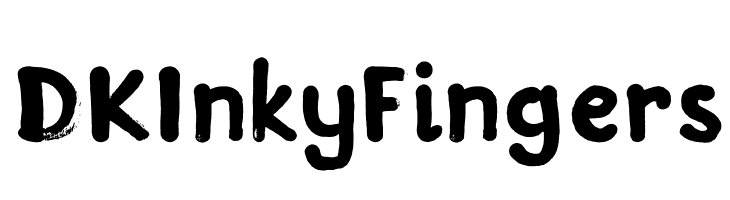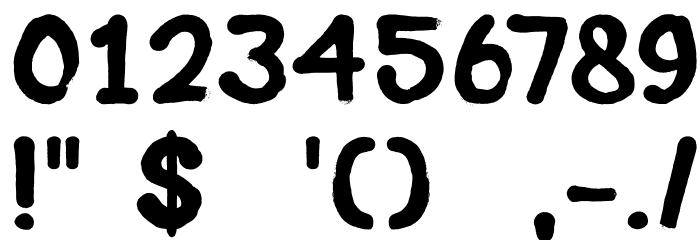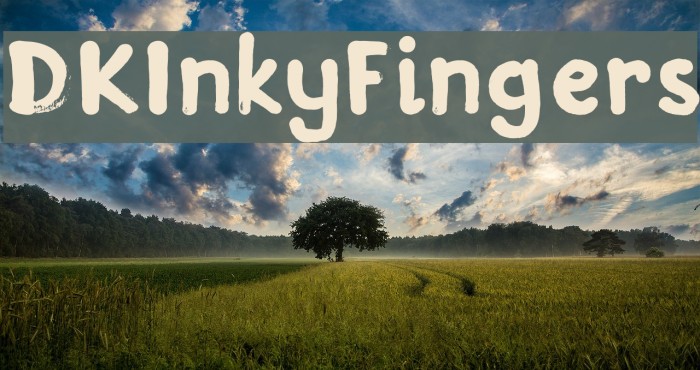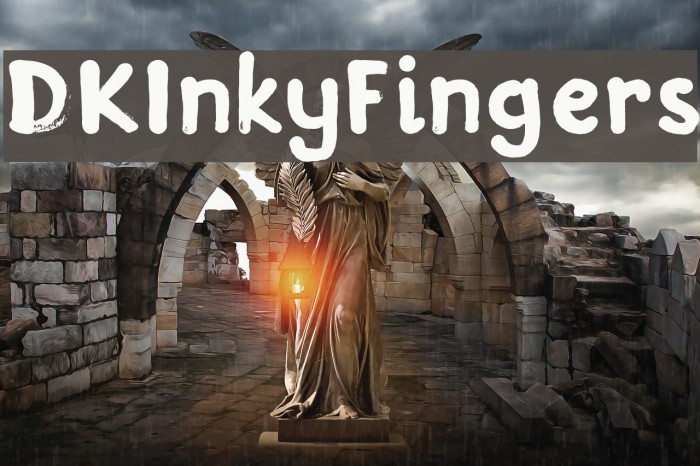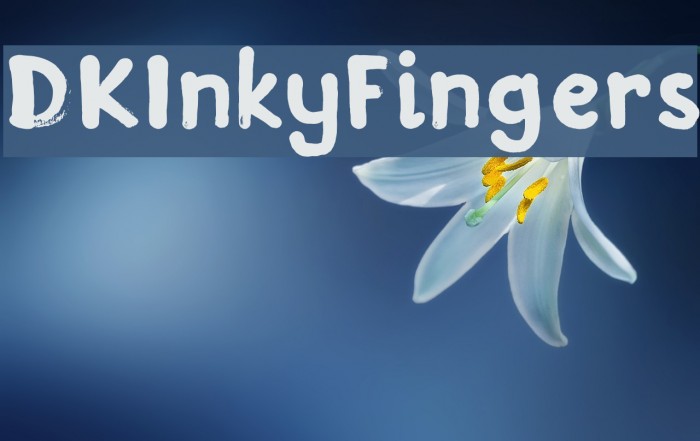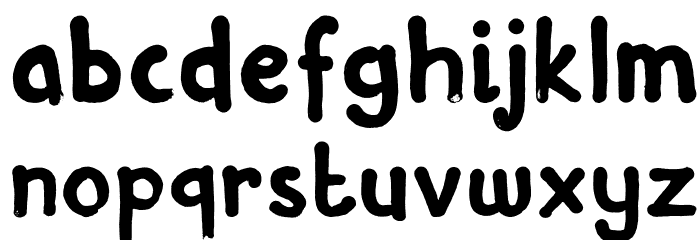
DKInkyFingers Font
DKInkyFingers Description
This font features a playful and artistic style, reminiscent of hand-painted or inked letters. The characters have a bold, uneven texture that gives them a lively and dynamic appearance. The strokes are thick and irregular, adding a sense of movement and energy. The font maintains a consistent baseline, but the varying stroke widths and slight imperfections in the letterforms contribute to its handcrafted feel. It is both expressive and approachable, making it suitable for creative and informal applications.
A bold, hand-painted style font with dynamic, irregular strokes from Uncategorized fonts.
- Proposed Projects: Ideal for children's book covers, playful branding, artistic posters, and creative social media graphics.